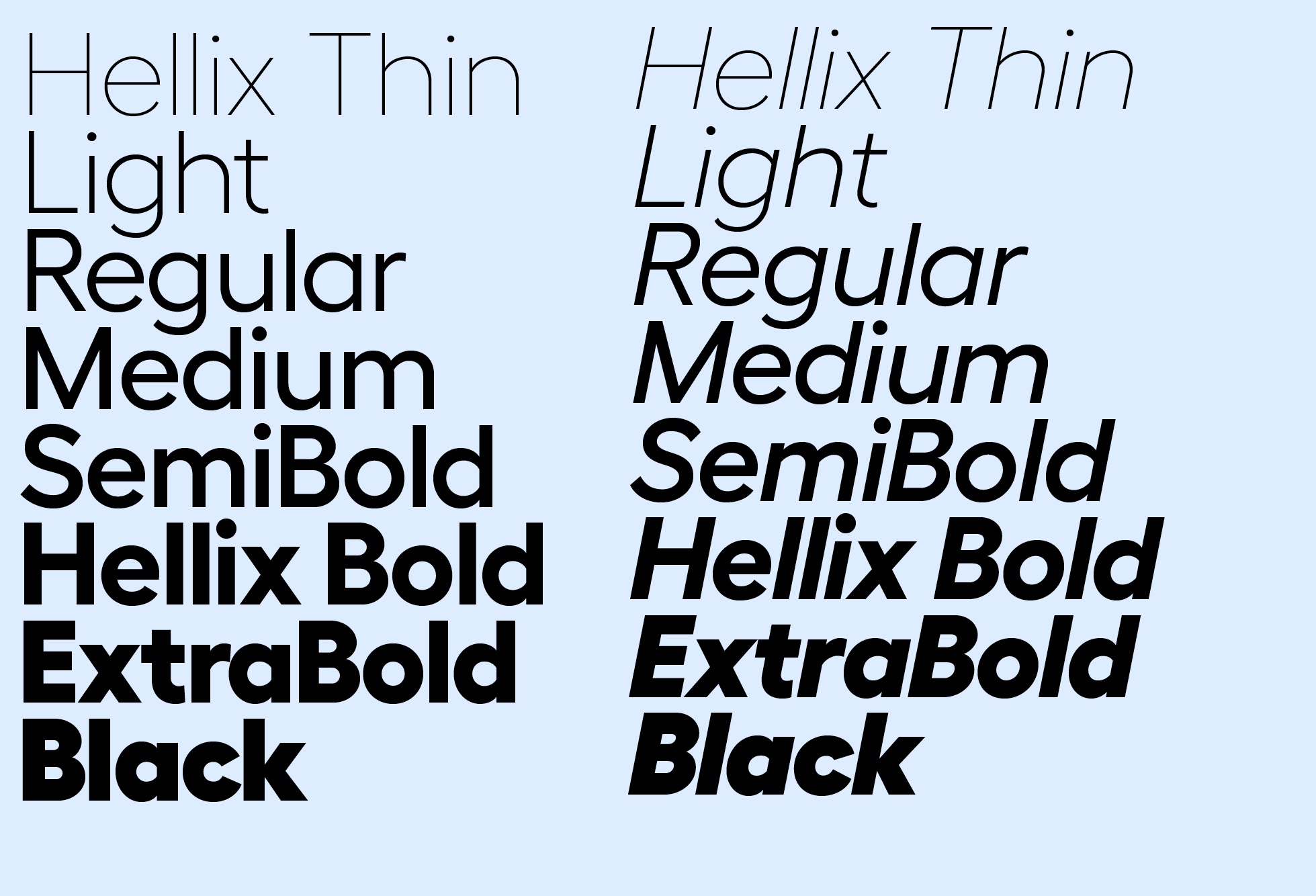
Hellix Font
Hellix Font excels in futuristic tech branding, modern architectural presentations, innovative software interfaces, space technology companies, scientific research publications, contemporary art galleries, high-tech product packaging, medical technology marketing, aerospace industry materials, and cutting-edge digital platforms requiring progressive visual identity.
What makes Hellix Font exciting is its revolutionary geometric construction that perfectly embodies the precision and innovation of modern technology while maintaining exceptional human readability. This extraordinary typeface features mathematically perfect letterforms with subtle curve adjustments that create a sense of forward motion and technological advancement. The font's scientific precision and futuristic character make it ideal for organizations seeking to communicate breakthrough innovation, technical excellence, and visionary thinking that pushes boundaries of possibility.
Hellix Font belongs to the geometric sans-serif font family, specifically engineered for high-tech applications and scientific communications. This font family typically includes ultra-light, light, regular, medium, bold, and black weights with corresponding italic styles, providing designers with comprehensive typographic solutions for complex technical documentation and innovative brand systems.
Perfect for technology companies, research institutions, aerospace engineers, and design professionals in scientific fields, this typeface performs exceptionally in technical documentation, user interfaces, and corporate communications. The font's mathematical precision extends across digital platforms, scientific publications, technical manuals, and innovative branding systems where accuracy and clarity are paramount.
The precisely engineered letterforms maintain optimal legibility while expressing distinctive technological character at all scales. From detailed technical specifications to large-scale conference presentations, Hellix Font delivers consistent performance while preserving its futuristic aesthetic and scientific authority.
Modern designers value how this font communicates innovation without sacrificing functionality, creating designs that feel both cutting-edge and professionally reliable. Its extensive character set and technical features ensure seamless integration into complex scientific projects and international technology companies.